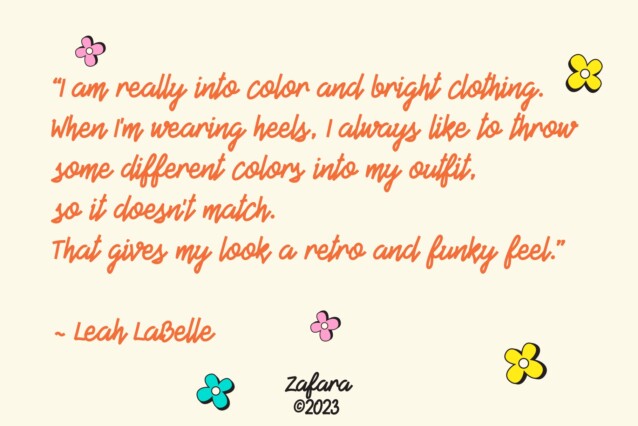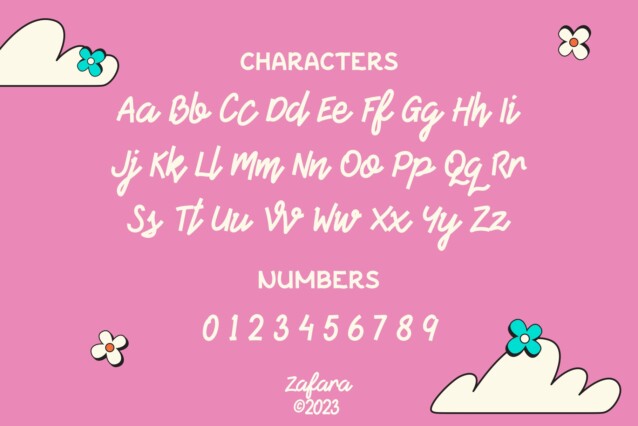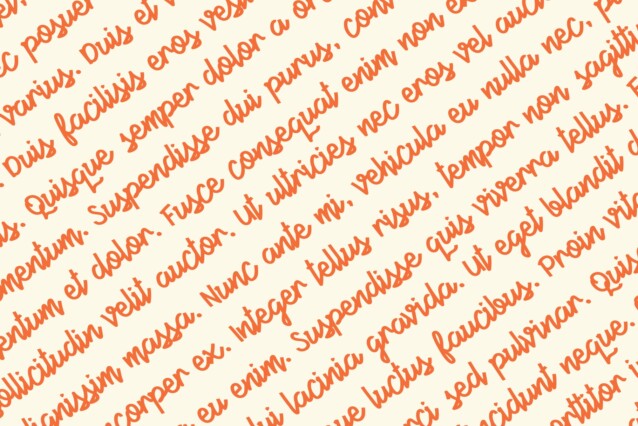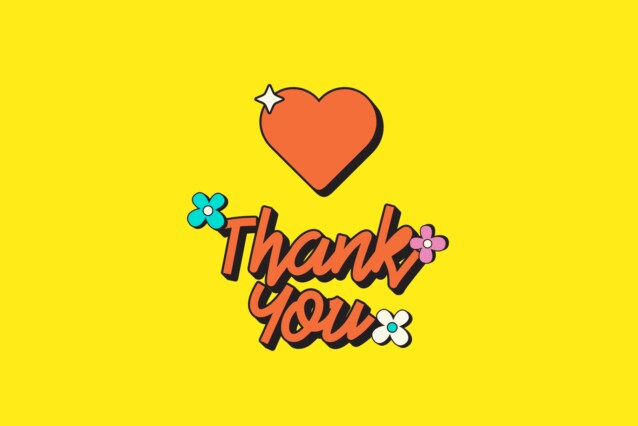
Birdmello Font
Birdmello Font is a font with a bold script look. This font is perfect for greeting cards, logotypes, branding, posters, and much more. However, basically it can be used with a wider range of themes depending on your design needs.